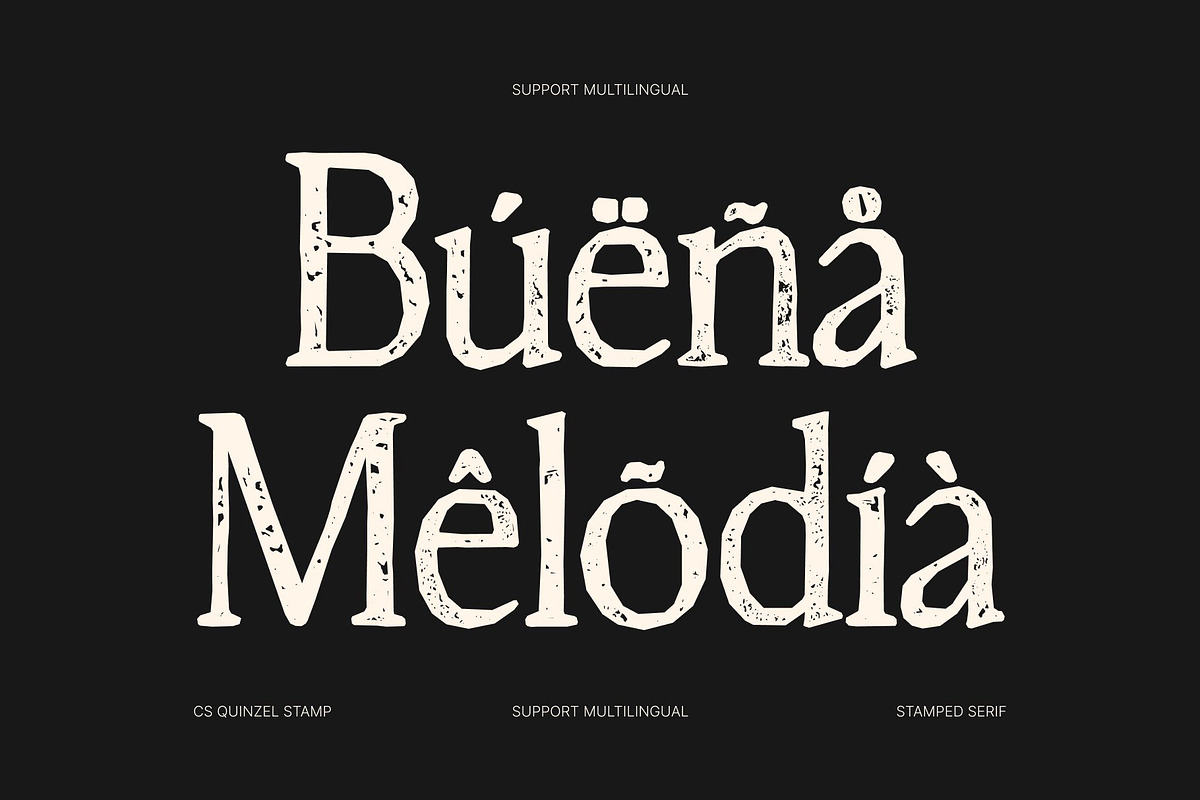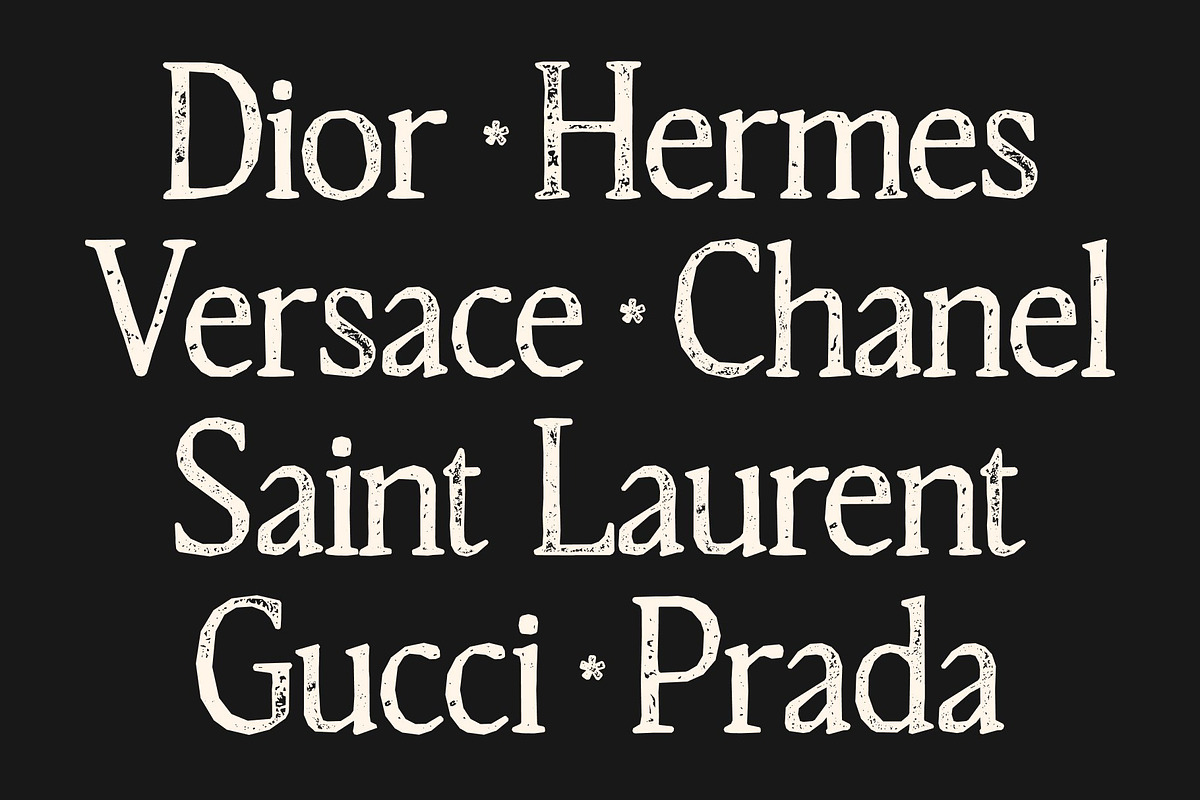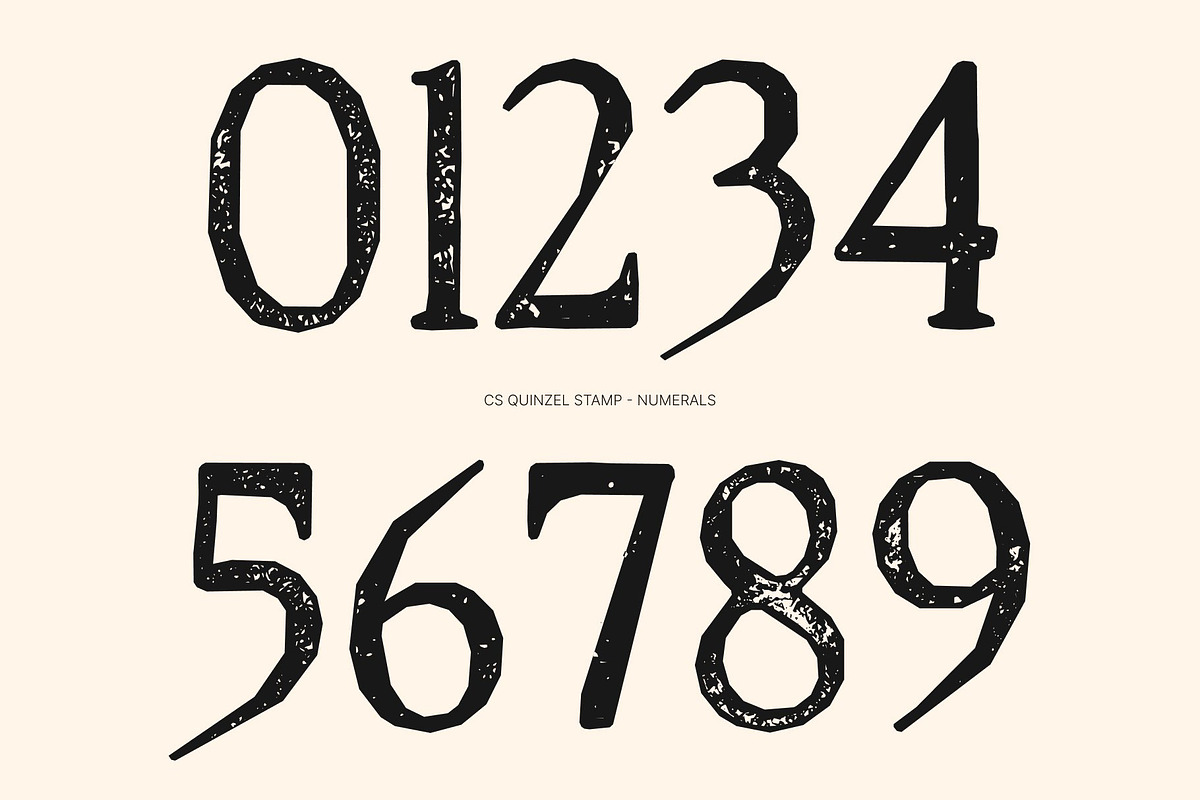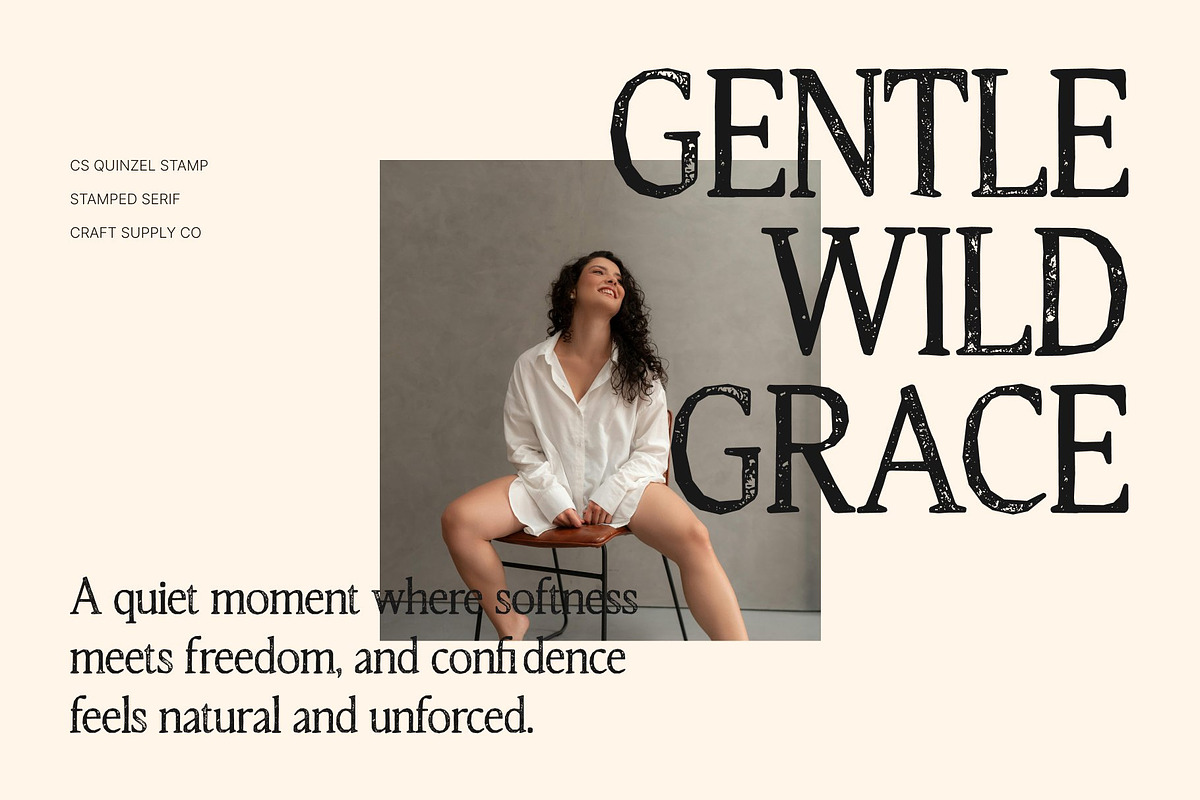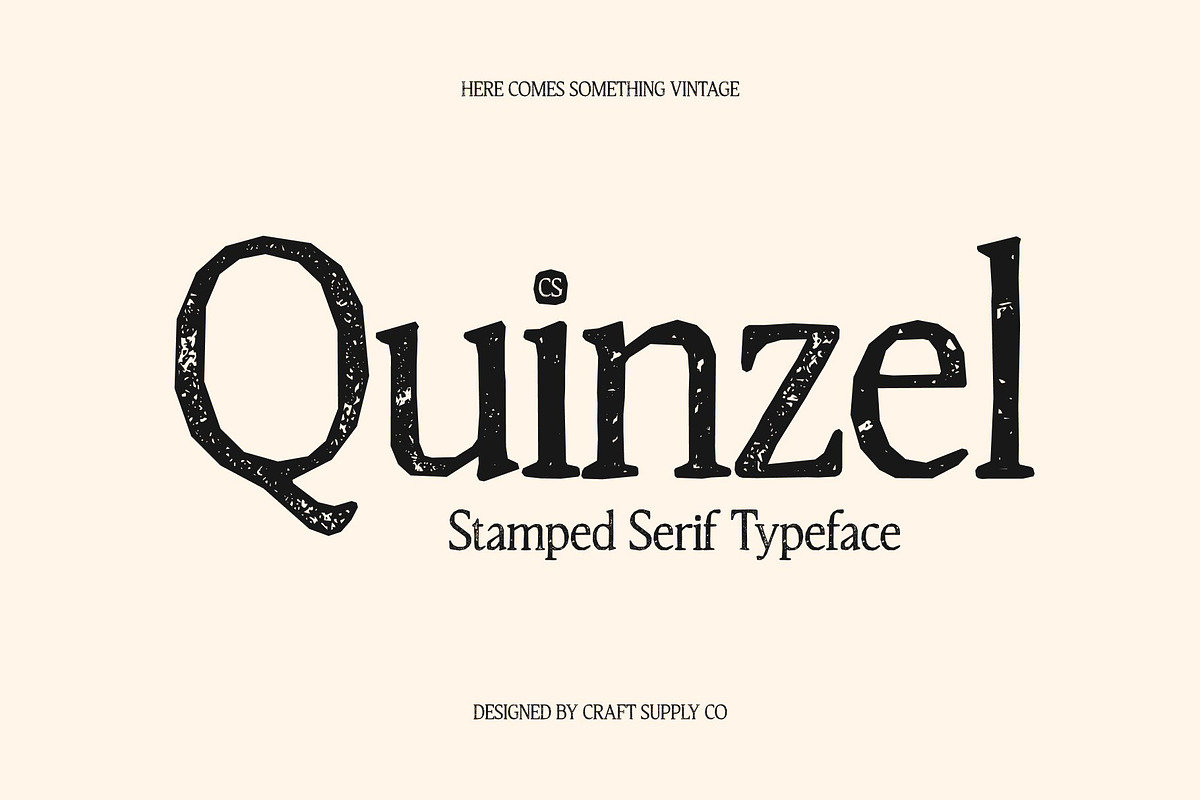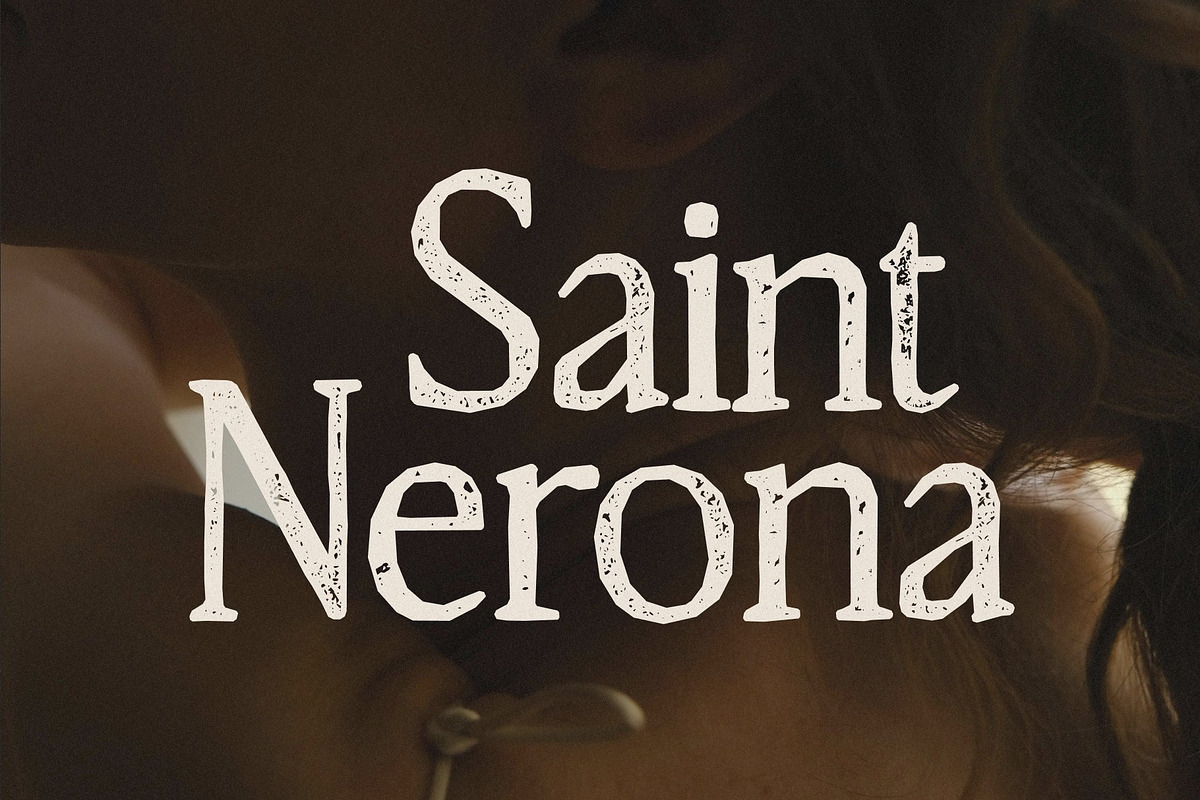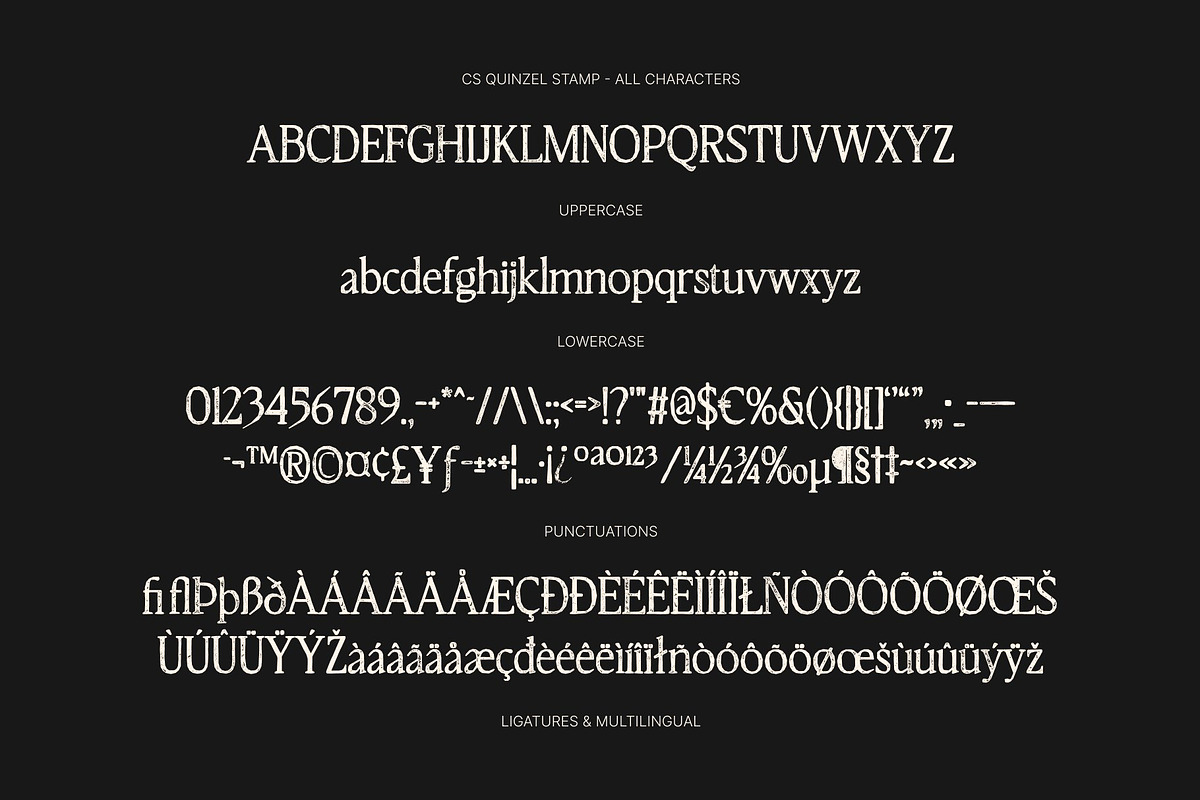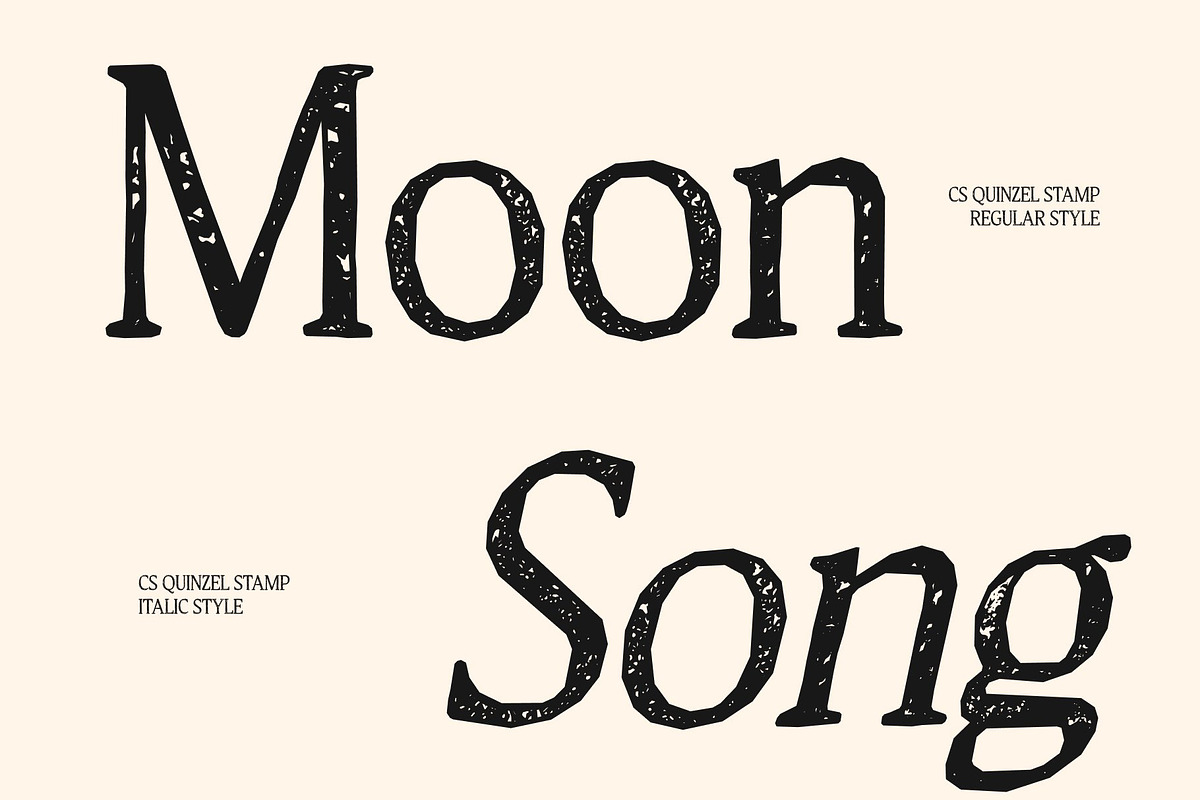
CS Quinzel Stamp
CS Quinzel Stamp – Modern Serif Font: Where Timeless Elegance Meets Vintage Artistry
Slender Elongated Serifs with Refined Sophistication This is a modern serif font that harmoniously blends contemporary structure with timeless elegance. Designed with slender elongated serifs and graceful proportions, it radiates refinement, luxury, and sophisticated style. Its balanced forms create a polished visual rhythm that feels both modern and classic, making every composition appear elegant and high-end.
Contemporary Structure with Timeless Beauty This font delivers a typographic voice that feels stylish, professional, and artistically refined. The elongated serif details enhance its graceful personality while maintaining excellent readability, creating a font that embodies sophistication and exclusivity.
Stamped Texture with Vintage Artistic Character This font introduces a handcrafted finish inspired by traditional print techniques. The slightly rough and organic texture adds vintage character, artistic depth, and authentic old-design charm to every letter. This expressive detail enriches the elegant serif forms with warmth and individuality.
Perfect for Luxury Branding, Posters, and Editorials This is perfect for luxury branding, posters, editorials, fashion campaigns, packaging, and sophisticated creative projects. Its elegant serif forms and textured detailing make it ideal for logos, magazine titles, invitations, premium labels, and upscale promotional materials.
CS Quinzel Stamp Regular
CS Quinzel Stamp Italic